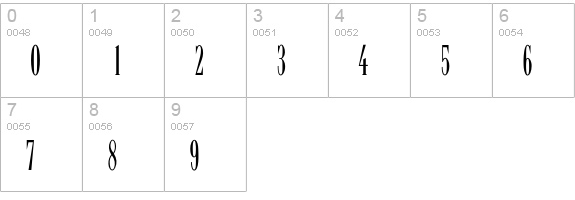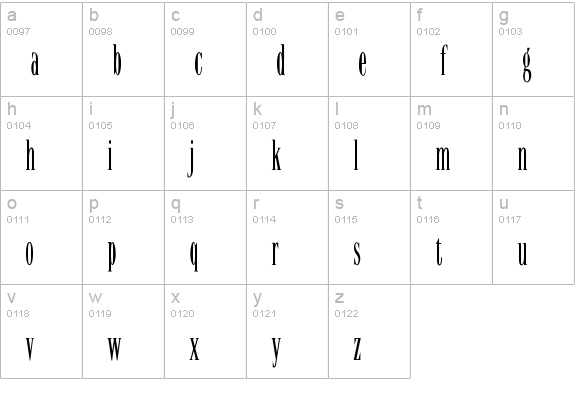
Quincy Font Details
Introducing Quincy font, a stunning typeface that embodies elegance and versatility. With its sleek lines and unique curves, Quincy is the perfect choice for adding a touch of sophistication to any design project. This font's timeless appeal makes it suitable for a wide range of applications, from branding and logo design to packaging and editorial work. Quincy font offers a wide range of weights and styles, allowing you to create harmonious and captivating typography compositions. Its clean and well-defined characters ensure excellent legibility, even at smaller sizes, making it ideal for both print and digital media. What sets Quincy font apart is not only its exceptional design but also its accessibility. It is freely available to download at FontsMarket.com, a trusted source for high-quality fonts. This means that you can easily incorporate Quincy into your designs without worrying about any additional costs. Whether you are a professional designer or a hobbyist, Quincy font provides you with a valuable tool to elevate your creative projects. Its versatility, elegance, and the fact that it is freely available make it a must-have in your font collection. So, why wait? Download Quincy font today and unlock a new world of design possibilities.